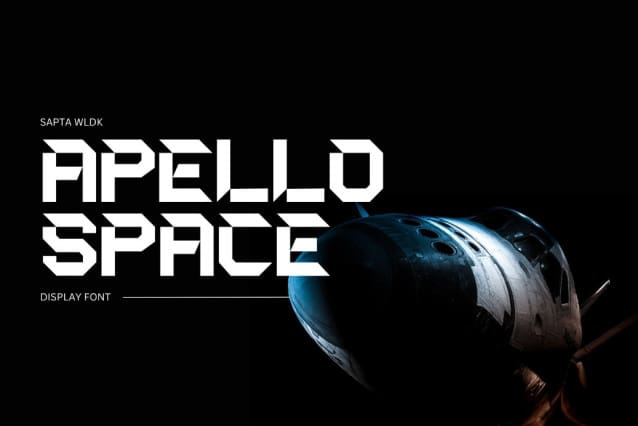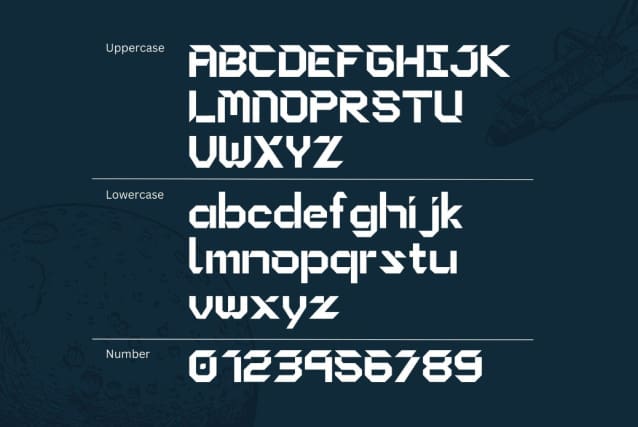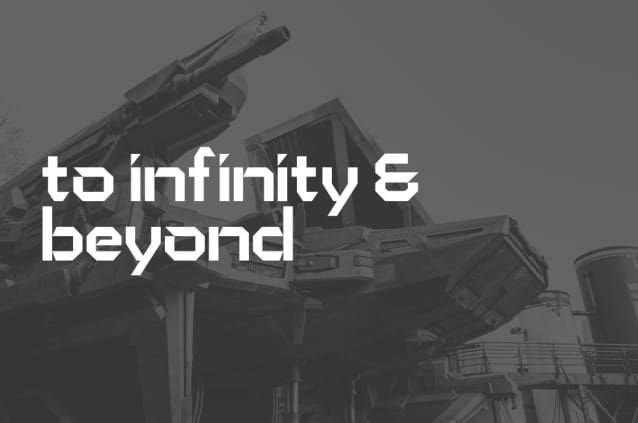
Apello Space Font
Apello Space Font is a futuristic font style with sophisticated, modern and minimalist allcaps characters. Its futuristic aesthetics bring a whole new dimension to your designs, making them stand out. Whether you’re working on a website, poster, logo, or any other project, this font adds that extra touch of innovation and sophistication.
Apello Space by Sapta Wldk